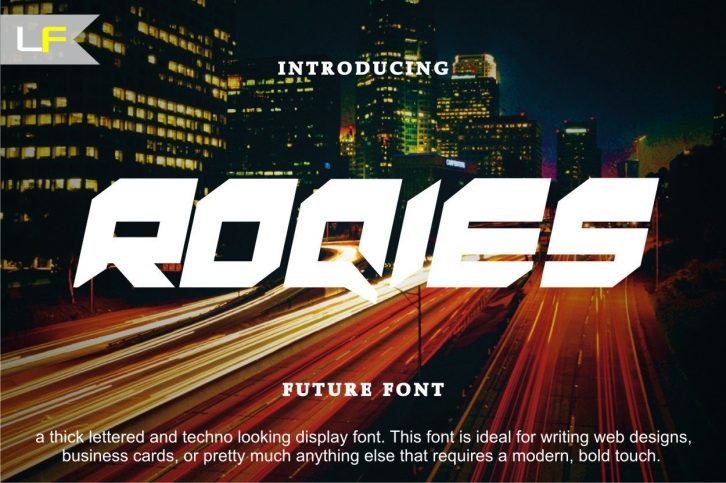
Roqies is a thick lettered and techno looking display font. This font is ideal for writing web designs, business cards, or pretty much anything else that requires a modern, bold touch.